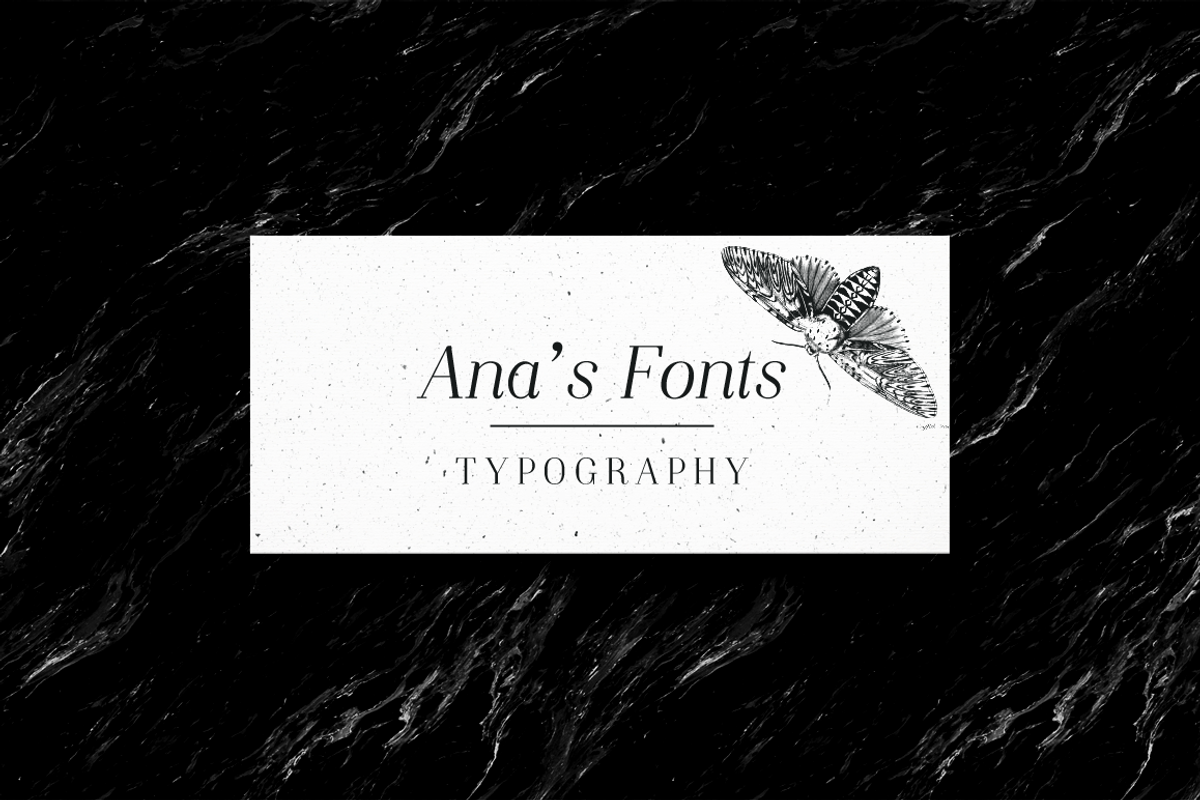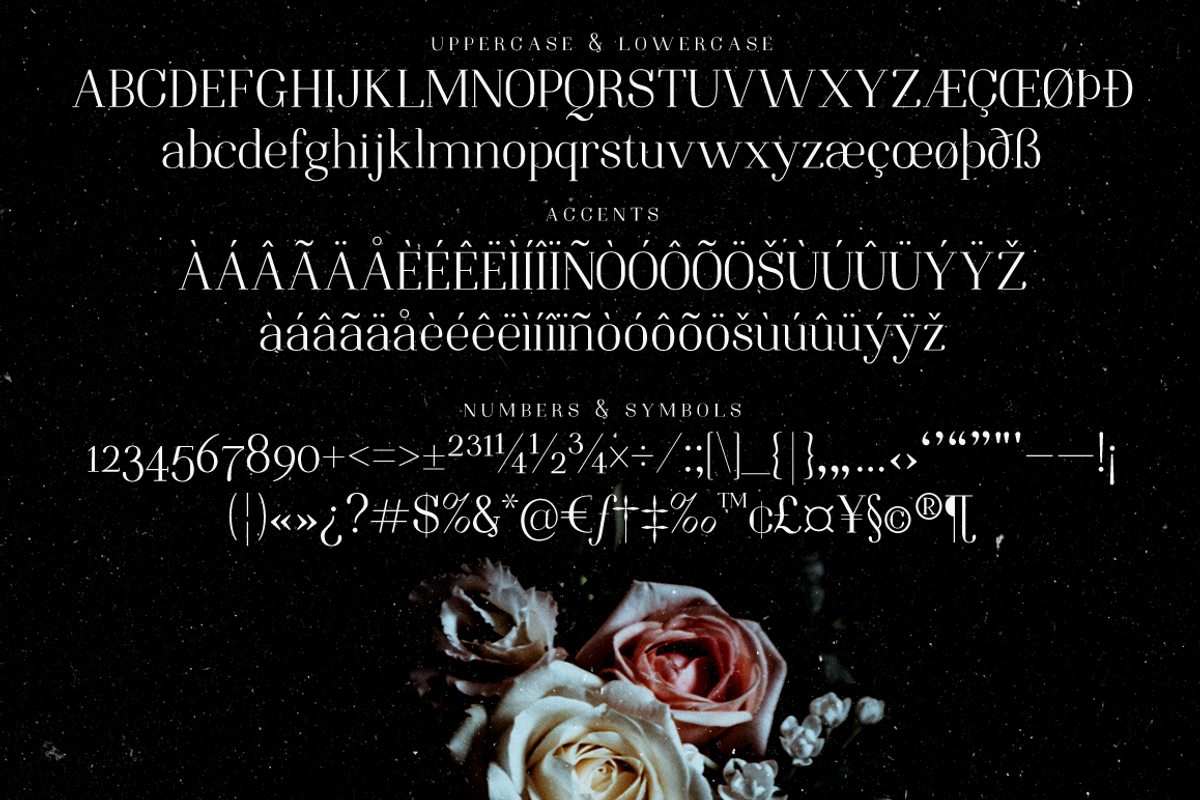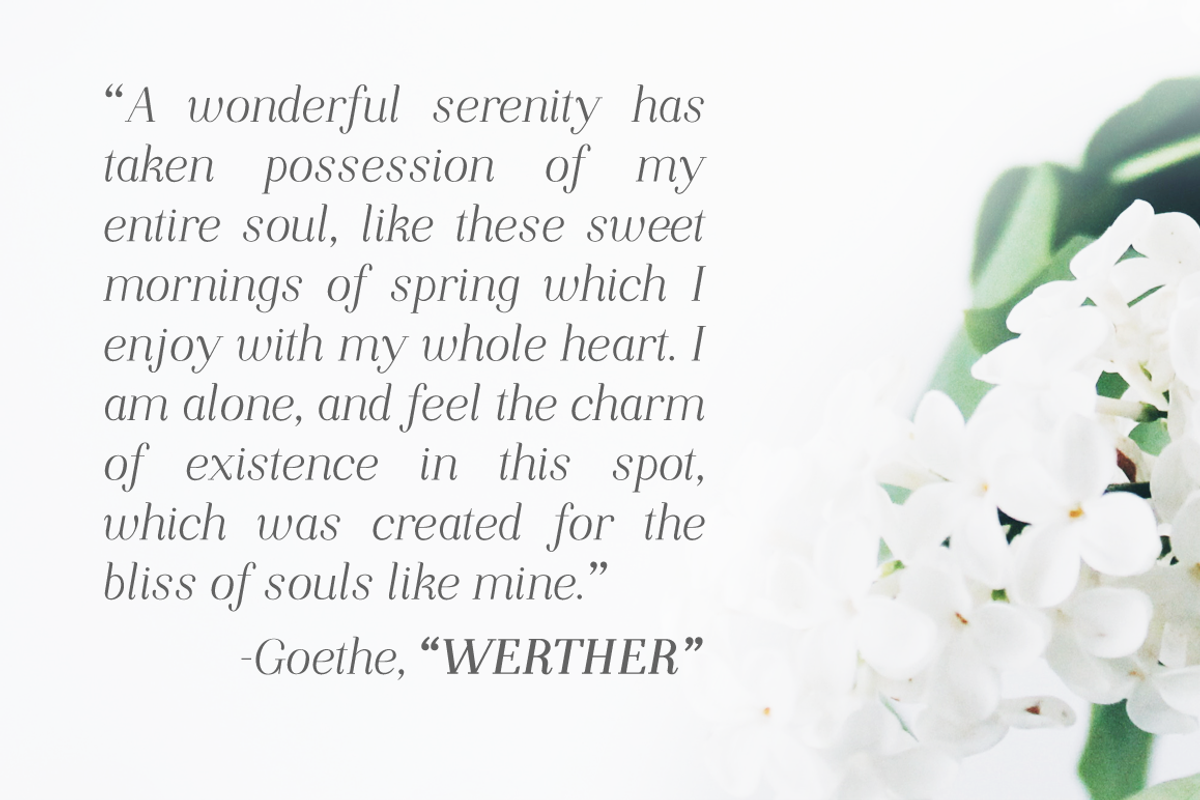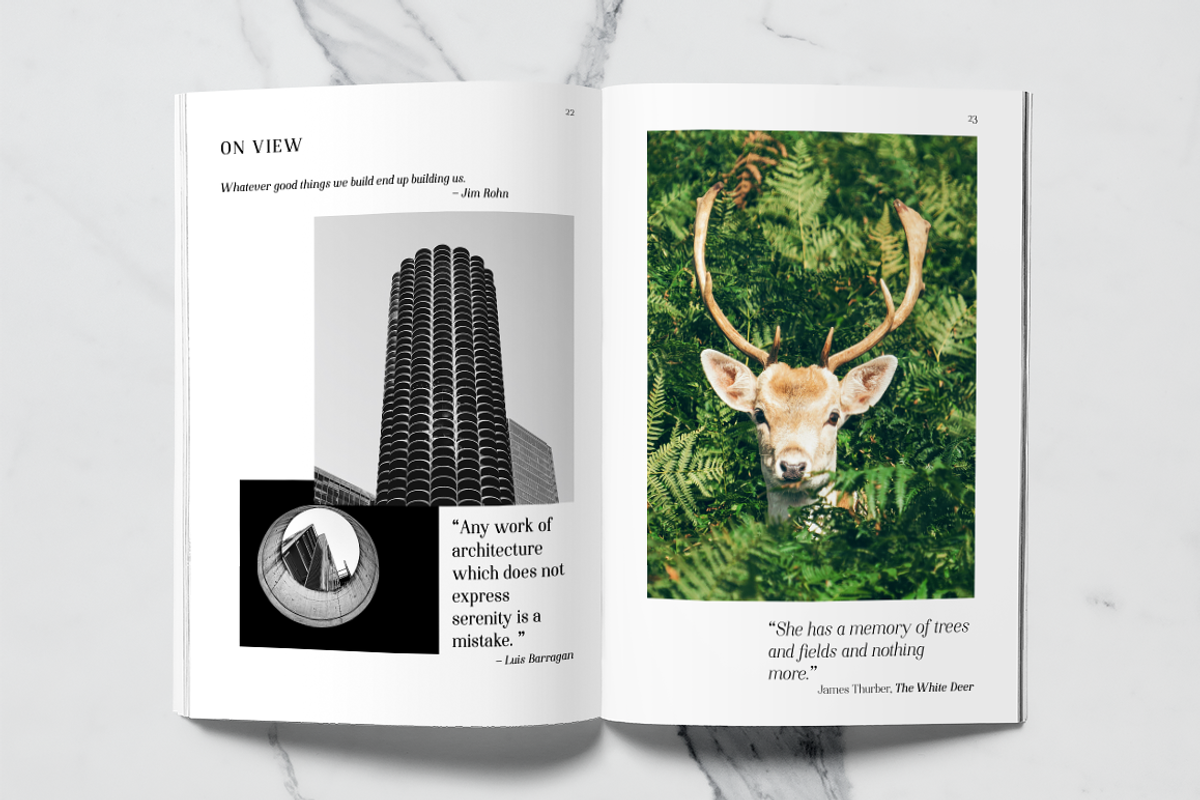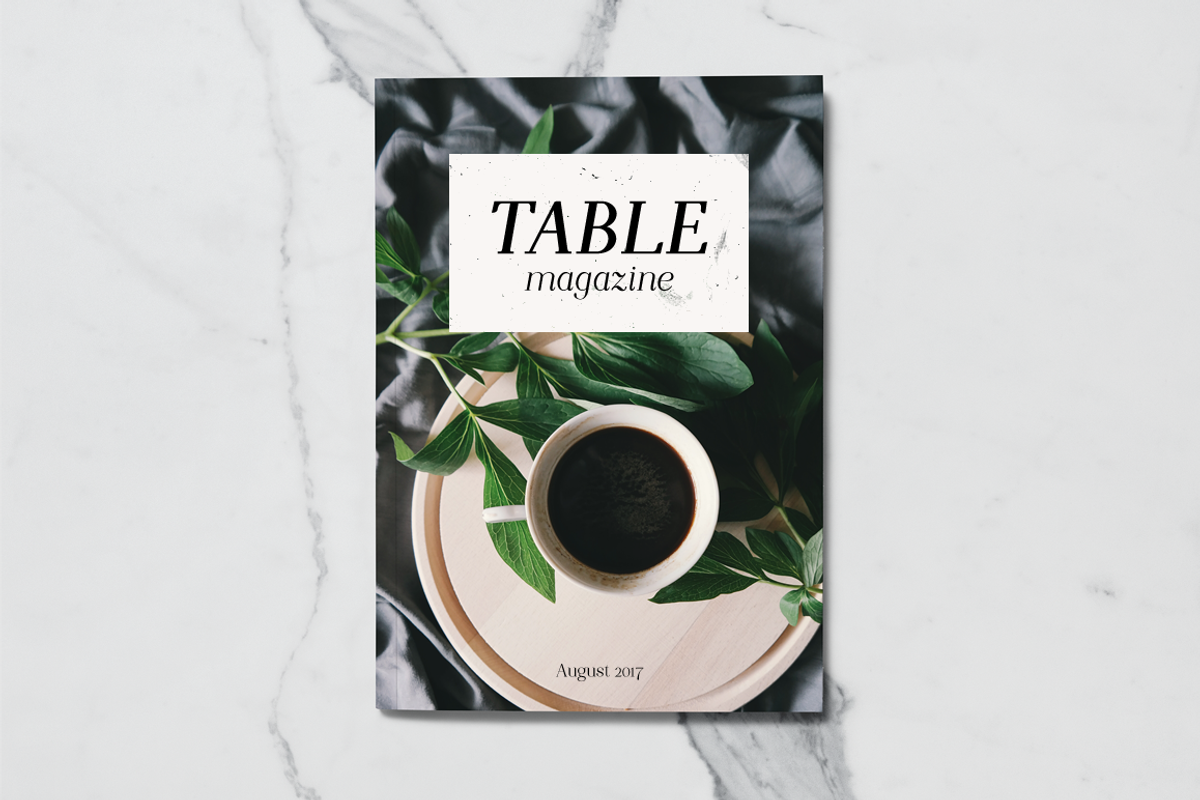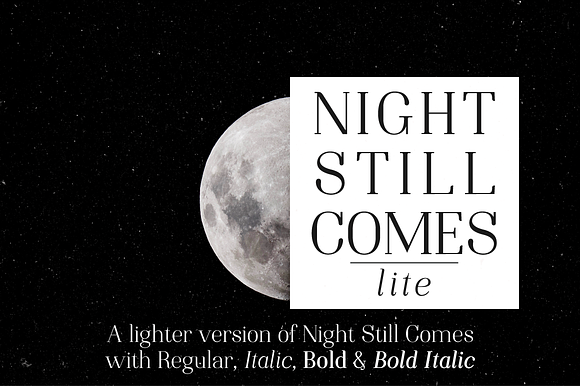
Night Still Comes Lite serif font
This is a lighter version of Night Still Comes, with 224 glyphs, including:
Symbols and punctuation
- This is a lighter version of Night Still Comes, with 224 glyphs, including: Accents Numbers Symbols and punctuation fi & fl ligatures Night
- Night Still Comes Lite Regular
- Night Still Comes Lite Italic
- Night Still Comes Lite Bold
- Night Still Comes Lite Bold Italic